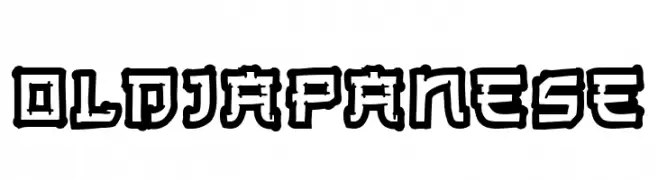
A whimsical, hand-drawn font inspired by traditional Japanese hiragana.
A clean, modern font with clear, consistent characters and Japanese katakana elements.
A playful, handwritten Japanese font with rounded, casual strokes.
Ornamental symbol font with Japanese crest-inspired designs.
Ornate, emblematic display set with Japanese crest motifs.
Illustrative font using Japanese cultural scenes for each character.
Ornamental dingbat font of Japanese crane crests.
A playful, rounded font inspired by traditional Japanese calligraphy.
A playful, bold font with a hand-drawn, Japanese calligraphy-inspired style.
A playful, dot-based decorative font inspired by Japanese Hiragana.
Bold, geometric sans-serif Japanese font with strong, clean lines.
A smooth, rounded Hiragana script font with a modern yet traditional feel.
A decorative font with intricate patterns and bold strokes, inspired by traditional Japanese art and modern graffiti.
A bold, angular font inspired by Japanese calligraphy with a modern edge.
Ornate, emblematic symbols reminiscent of Japanese kamon.
A decorative icon font featuring sushi and Japanese food illustrations as characters.
Pixelated monospaced Japanese font with a retro digital style.
A bold, calligraphic font with dynamic strokes and a handcrafted feel.
A bold, angular font with a modern twist on traditional Japanese aesthetics.
A bold, decorative font with intricate patterns inspired by traditional Japanese art.
A bold, distressed font with a hand-painted, calligraphic style.
A bold, calligraphy-inspired font with sharp, angular strokes and ink splatter effects.
A playful, character-based decorative font inspired by anime and manga.
A bold, textured font with a hand-drawn, calligraphic style.